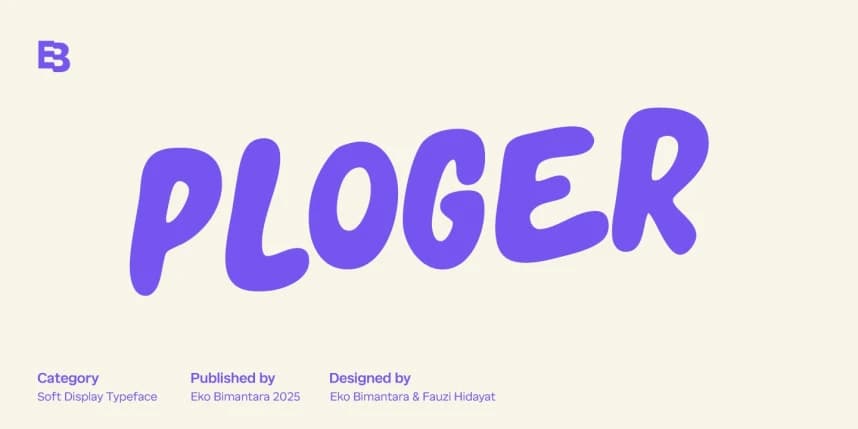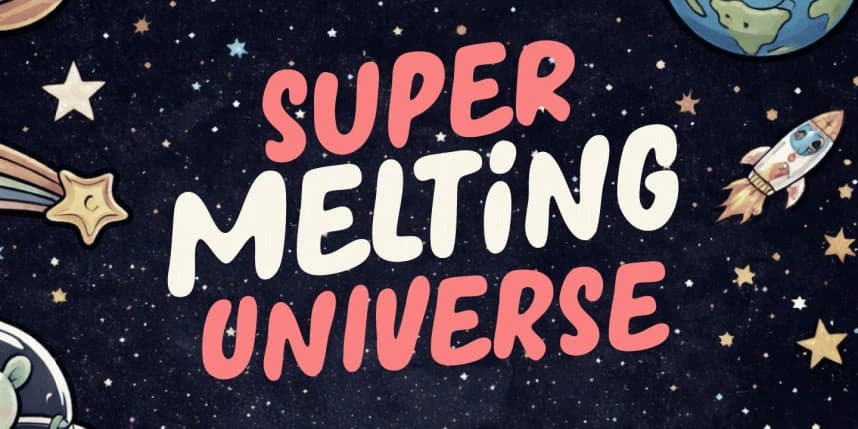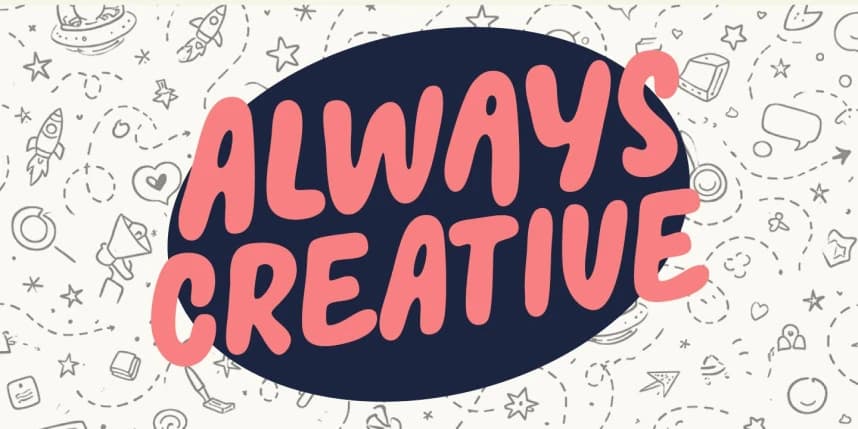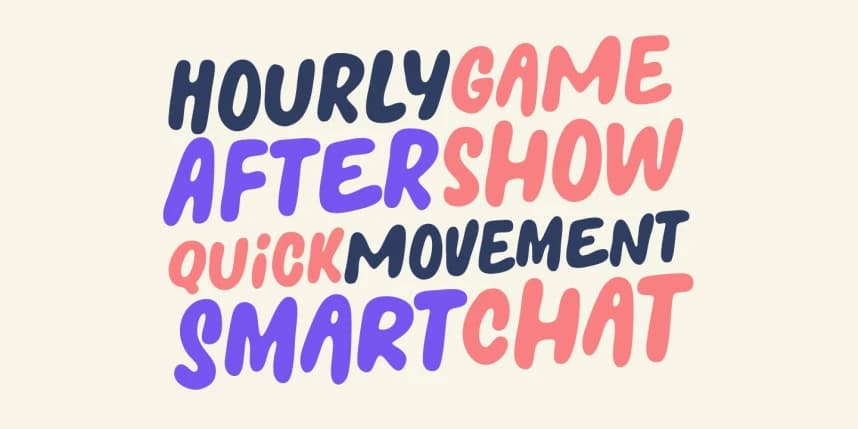
Ploger Display Font
Ploger Display Font is a fun and soft display typeface designed to deliver a cheerful and inviting visual tone. With its smooth curves and playful character, Ploger works perfectly for joyful themes, making it an excellent choice for food brands